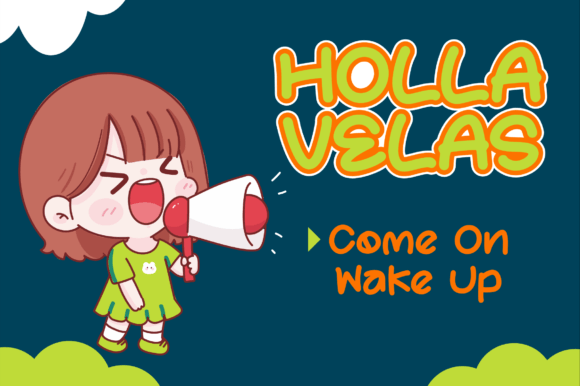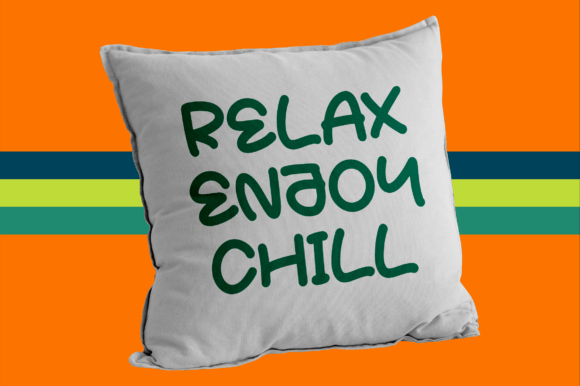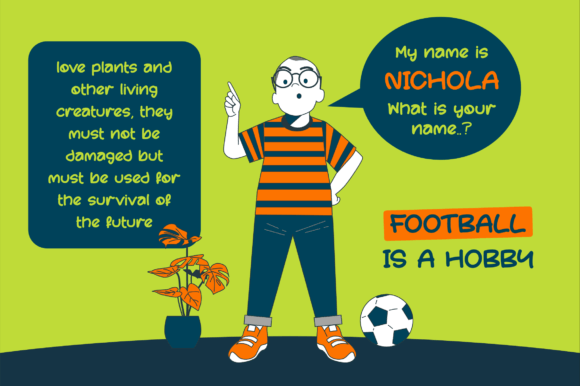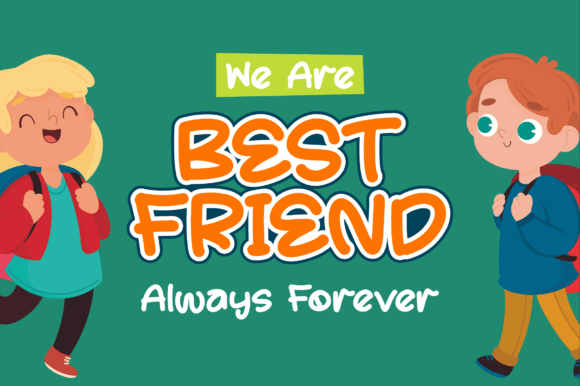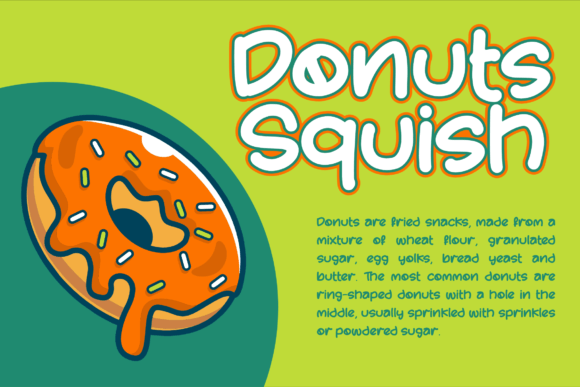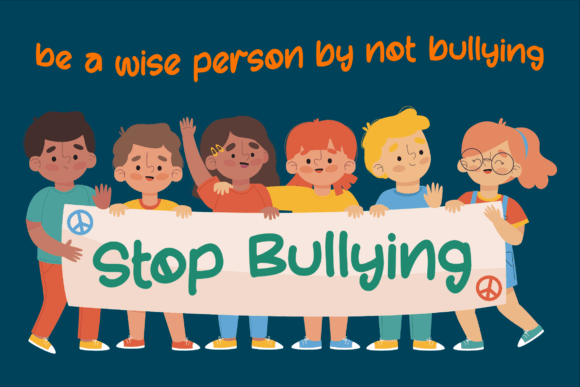
Introduction to Luckies Children Font
Luckies Children is a childish, easy-to-read display font that conveys impeccable friendliness.
Whether you’re using it for crafts, digital design, presentations, or making greeting cards, this font has the potential to become your favorite go-to font, no matter the occasion .